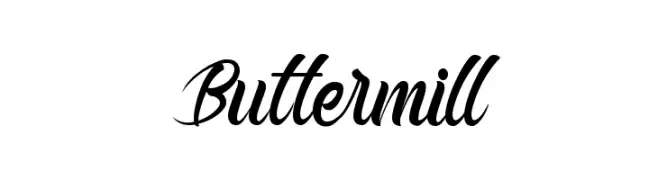
A bold, angular font with high contrast and geometric shapes, ideal for impactful headlines.
A bold, playful handwritten font with expressive strokes.
A bold, playful font with rounded, thick strokes and a friendly appearance.
A bold, angular font with a gothic influence and pointed serifs.
A bold, playful handwritten font with dynamic, flowing letterforms.
A dynamic and flowing script font with elegant curves and a handwritten appearance.
A playful and bold font with whimsical curves and a lively personality.
A bold, playful font with rounded, hand-drawn characters.
A playful, stone-textured decorative font with bold, uppercase characters.
A bold, gothic-inspired font with sharp, angular edges and high contrast.